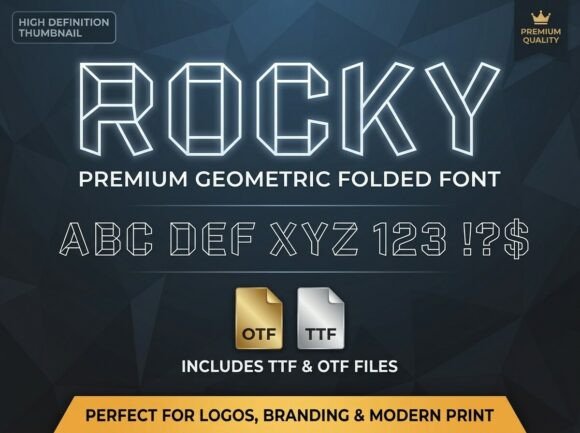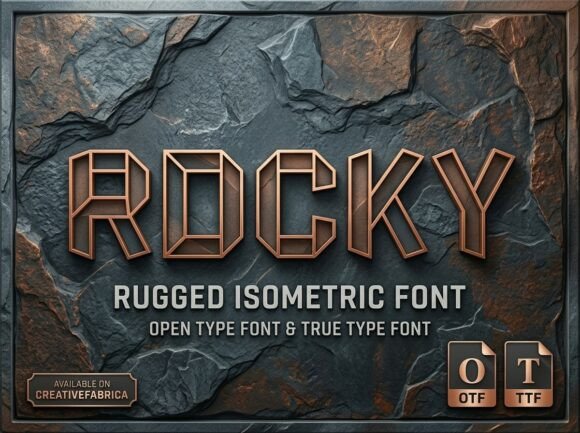
Introduction to Rocky Font
Have you ever stared at a blank design canvas, searching for the perfect font to elevate your creative project? The moment of truth arrives, and you need a typography game-changer to make your design pop. That’s where the stunning Rocky Font comes in – a free download that’s about to revolutionize your design workflow.
This high-quality design resource is not just another font; it’s a statement piece that demands attention. With its unique artistic elements and strong visual personality, Rocky Font is perfect for designers who want to break free from the ordinary and create something truly exceptional. Whether you’re designing a modern poster, a unique brand identity, or eye-catching social media content, this font adds an instant “wow” factor to any project.
Key Features of Rocky Font
- High-quality design resource with a unique and rugged aesthetic, perfect for creative projects.
- Features a transparent background, allowing for seamless integration with any design or image.
- Comes in a single weight, with a range of sizes available for optimal use in various creative contexts.
- Perfect for designers and artists working on projects that require a bold, edgy, and high-quality font.
Honest Review: Rocky Font
I recently came across the Rocky Font while searching for a high-quality font to use in a creative project. I was excited to try it out and see if it lived up to its promise.
Here are the things that work well about the Rocky Font: ✨
- It has a transparent background, making it easy to place on any design surface.
- The font is highly customizable, allowing me to adjust the size, color, and style to fit my design needs.
However, I did encounter a few limitations: ⚠️
- The font may not be suitable for smaller text sizes, as the lines can become blurry and difficult to read.
Overall, I’m impressed with the Rocky Font and would definitely recommend it to designers looking for a high-quality font for their creative projects. While it may have a few limitations, the benefits far outweigh the drawbacks.
Rocky Font
The Rocky Font is a high-quality design resource that can be used in a variety of creative projects. It is available for free download and features a transparent background, making it easy to use in any design.
Tips for Getting the Most Out of the Rocky Font
Use the Rocky Font in bold or italic styles to add emphasis to your text.
Combine the Rocky Font with other design elements to create a unique and eye-catching design.
The Rocky Font is perfect for use in logos, business cards, and other marketing materials.
It can also be used in social media graphics, posters, and other creative projects.
Alternatives to Rocky Font
Montserrat is a popular sans-serif font designed by Julieta Ulanovsky. It is known for its geometric and urban feel, making it perfect for modern and creative projects. When to use: Logos, headlines, and titles in a modern design. How it compares to Rocky Font: Montserrat has a more geometric feel and is often used in urban design, while Rocky Font has a more rugged and distressed look.
Great Vibes is a modern calligraphy font designed by Pablo Impallari and Rodrigo Fuenzalida. It is ideal for creative projects that require a touch of elegance and sophistication. When to use: Invitations, quotes, and titles in a creative project. How it compares to Rocky Font: Great Vibes has a more elegant and refined feel, while Rocky Font has a more rugged and distressed look.
Alex Brush is a beautiful handwritten font designed by Lauren Wiley. It is perfect for creative projects that require a personal and emotional touch. When to use: Quotes, invitations, and titles in a creative project. How it compares to Rocky Font: Alex Brush has a more personal and emotional feel, while Rocky Font has a more rugged and distressed look.
4. Bangers Font
Bangers is a bold and playful font designed by Alex Haigh. It is ideal for creative projects that require a fun and energetic vibe. When to use: Logos, headlines, and titles in a fun and creative project. How it compares to Rocky Font: Bangers has a more playful and energetic feel, while Rocky Font has a more rugged and distressed look.